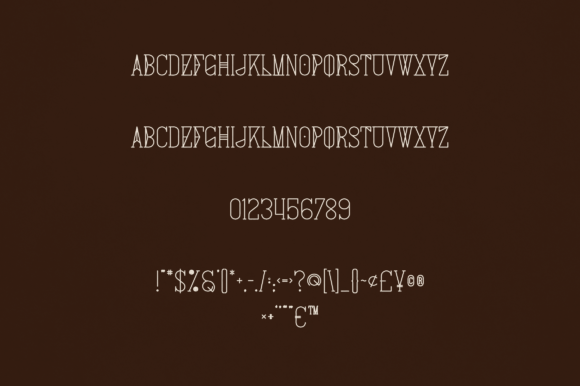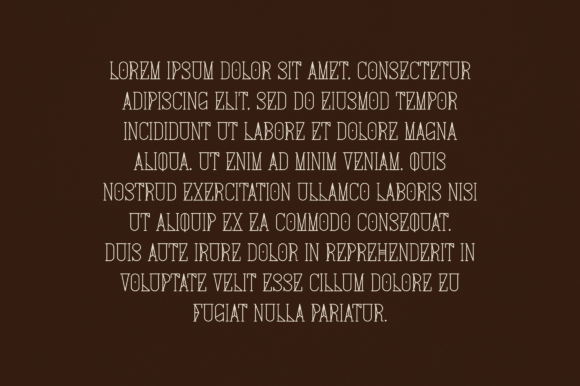
The Elodie Font: Elevate Your Typography with Elegance
Have you ever been in the middle of a design project, and suddenly, you’re stuck on finding the perfect font? I recall a recent experience where I was working on a branding project for a luxury home goods client. The brief required an elegant, yet versatile font that could seamlessly transition from logos to packaging and even magazine headers. After hours of scouring through font libraries, I stumbled upon Elodie – a game-changing display font that instantly elevated my design.
An Honest Review of Elodie Font
What I Love About Elodie ✨
- ✅ Elegant and sophisticated design that’s perfect for high-end branding
- ✅ Versatile and adaptable to various design applications, from logos to headlines
- ✅ Beautifully crafted to add a touch of luxury to any project
- ✅ Easy to read, even in smaller sizes
While Elodie is an exceptional font, there are a few minor considerations to keep in mind:
- 🤔 Limited availability of certain OpenType features in some software
- ⚠️ May not be the best choice for body text due to its display font nature
The Story Behind Elodie Font
Elodie was designed with the intention of creating a versatile, elegant display font that could cater to various design needs. Inspired by classic typography and modern design trends, Elodie is the brainchild of a talented type designer who aimed to craft a font that exudes sophistication and luxury.
Q: What is Elodie font best used for?
Elodie is perfect for branding projects, home-ware designs, product packaging, magazine headers, and as a stylish text overlay for background images.
Q: Does Elodie support OpenType features?
Yes, Elodie supports various OpenType features, including glyphs and stylistic alternates, which can be accessed in compatible software.
Q: Can I use Elodie for body text?
While Elodie is a beautiful font, it’s primarily designed as a display font. For body text, you may want to consider a more readable font.